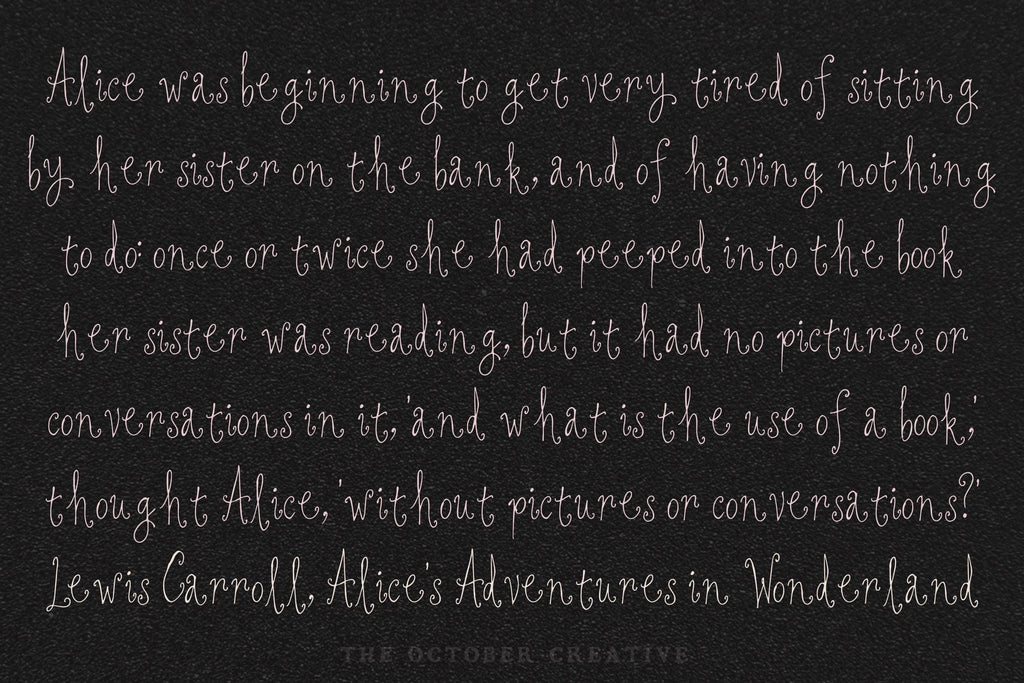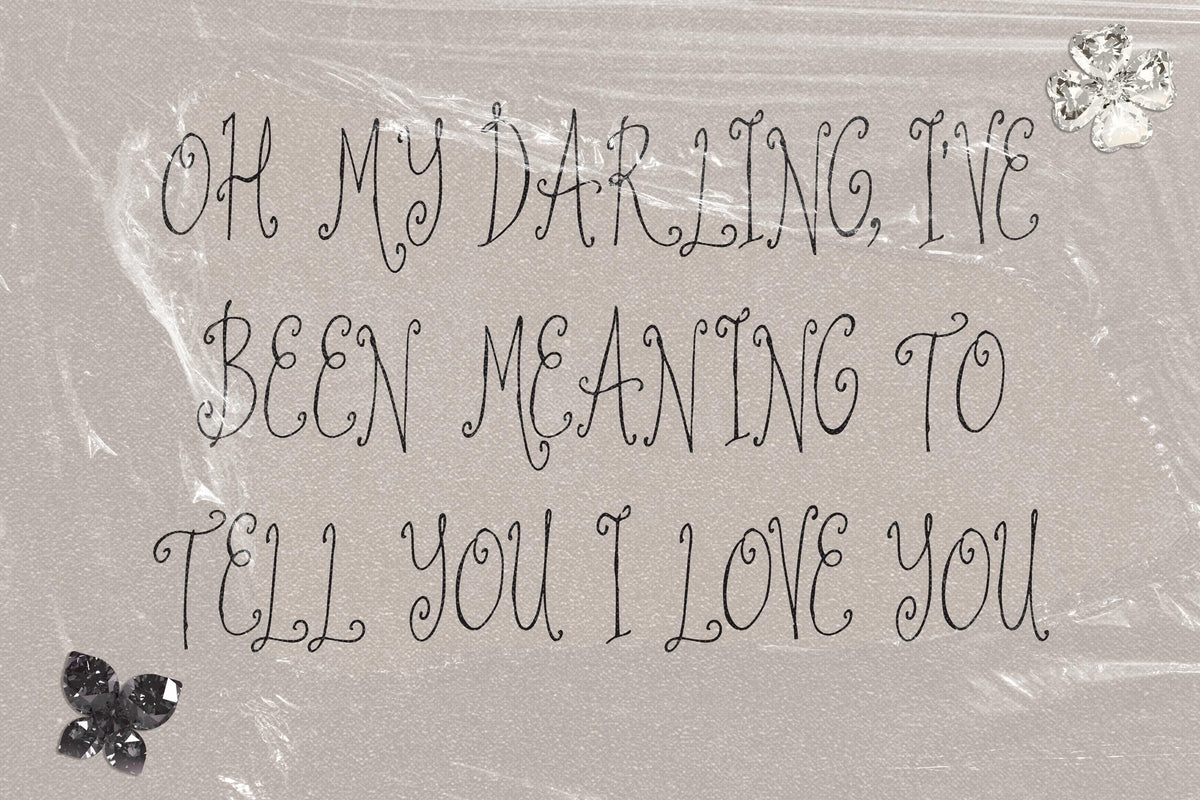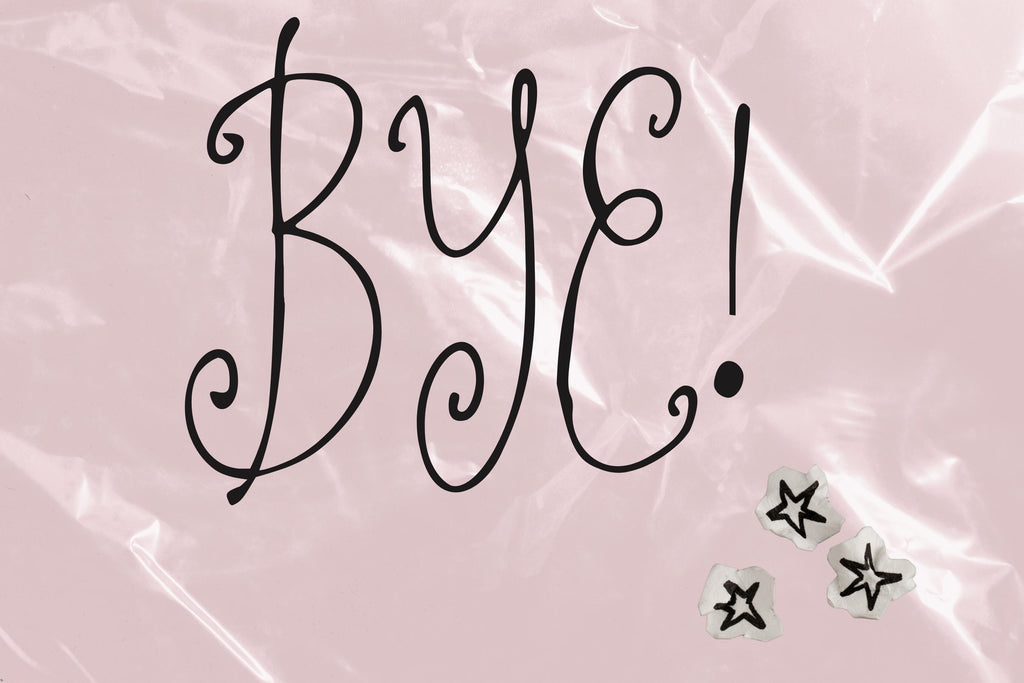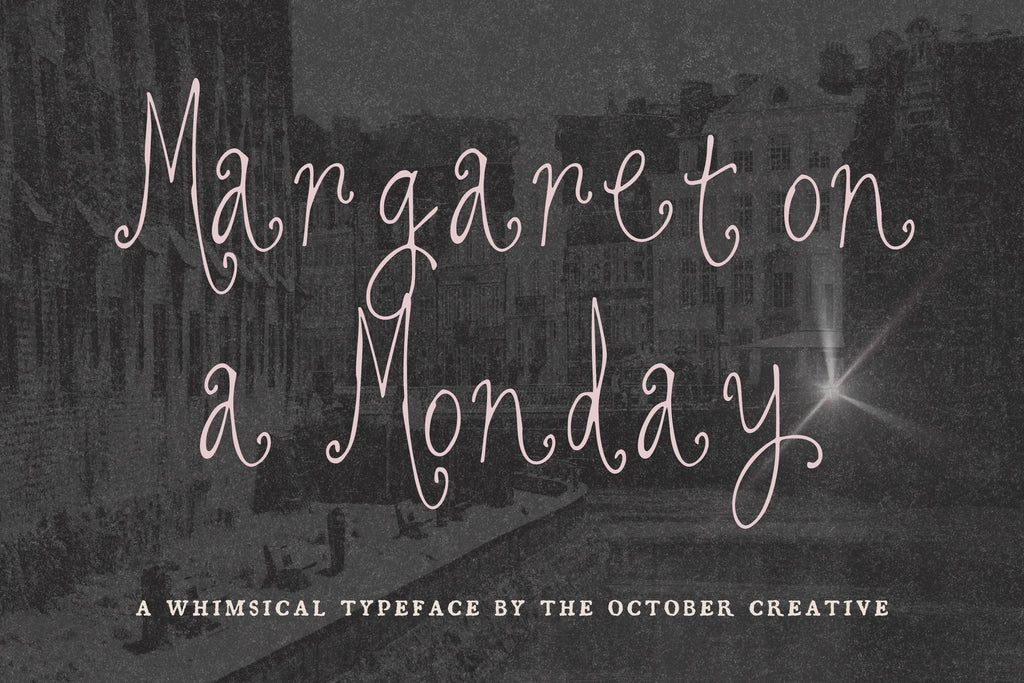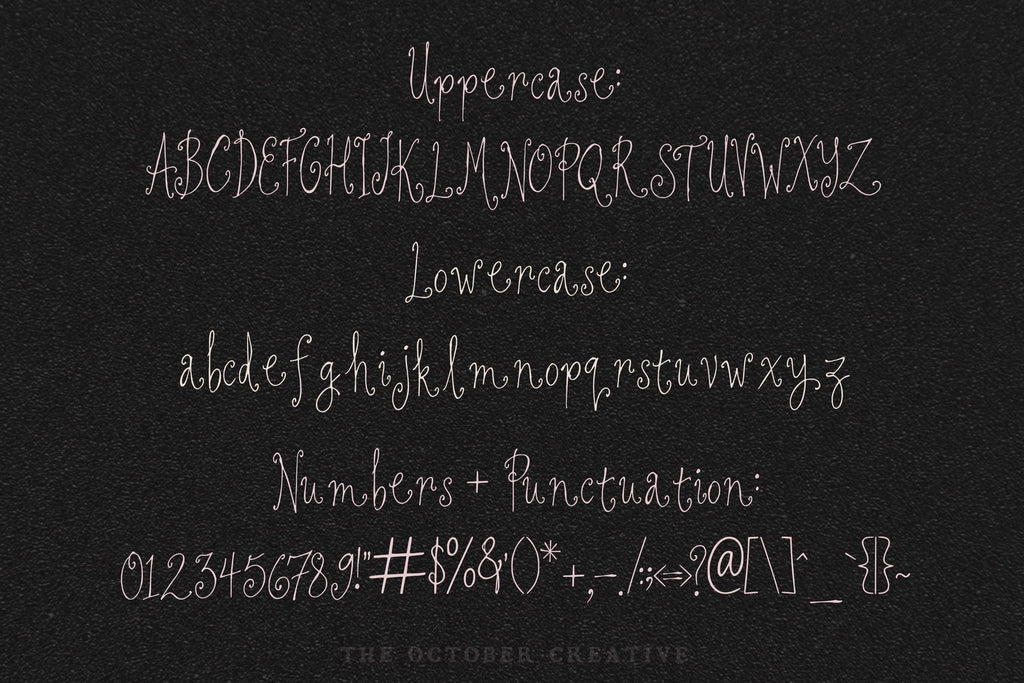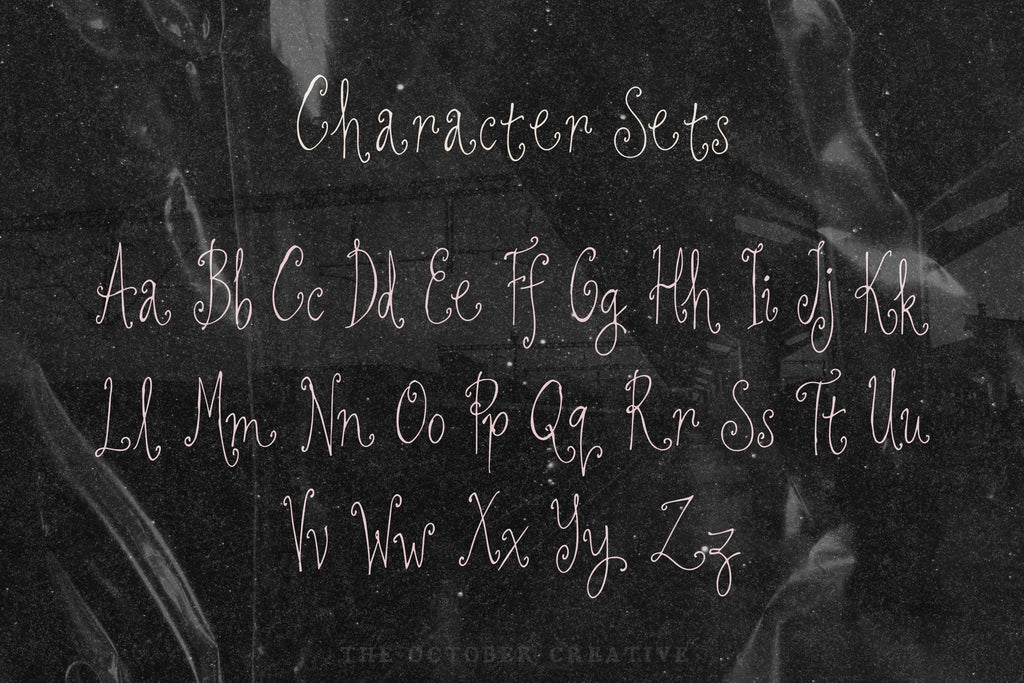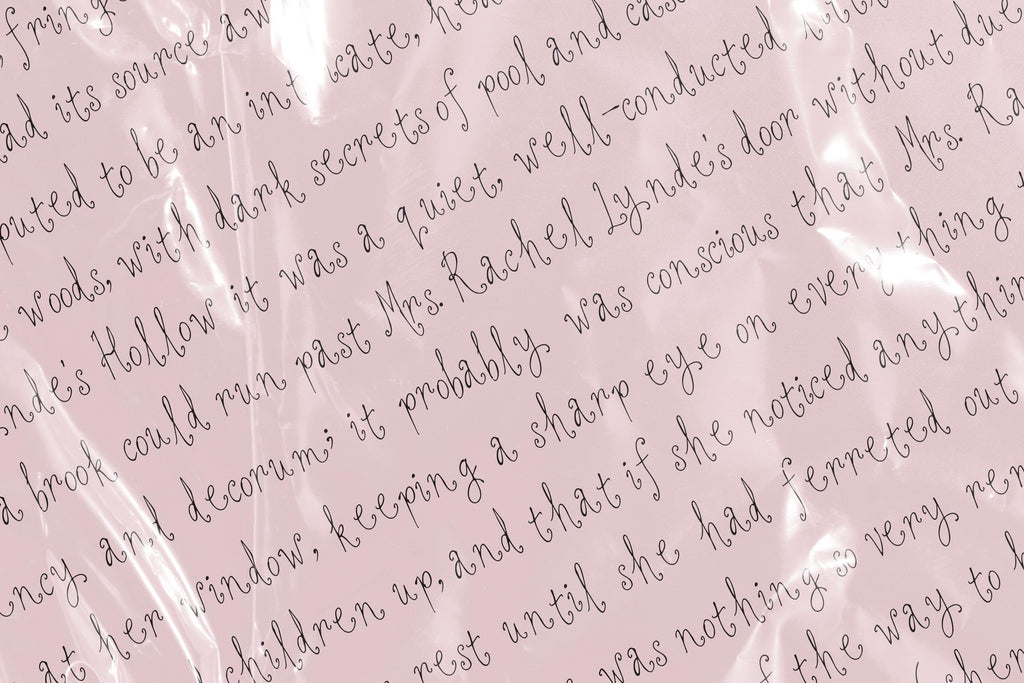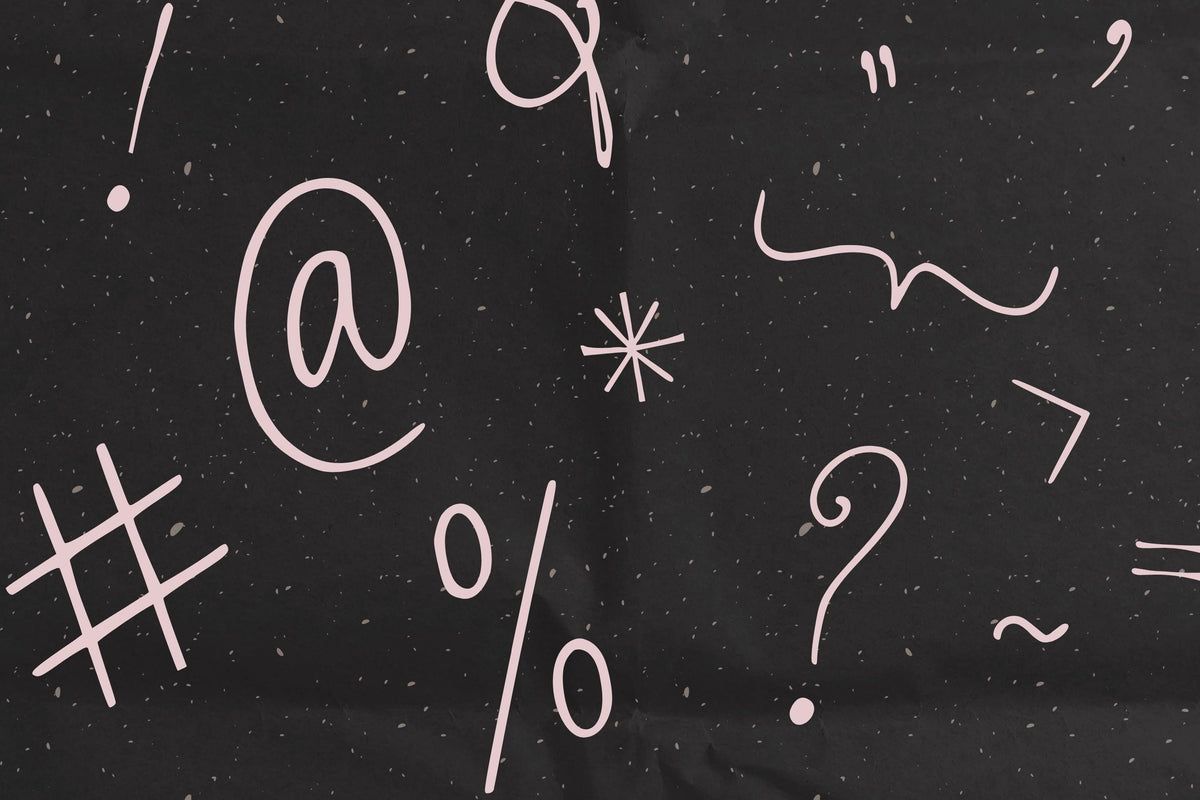
Margaret on a Monday Font
Margaret on a Monday is a thin handwriting font with upright letters and curls on the capitals. It looks like neat, old-fashioned handwriting and works for recipe cards, planners, journals, and handwritten-style notes.
- One style: Margaret on a Monday Regular